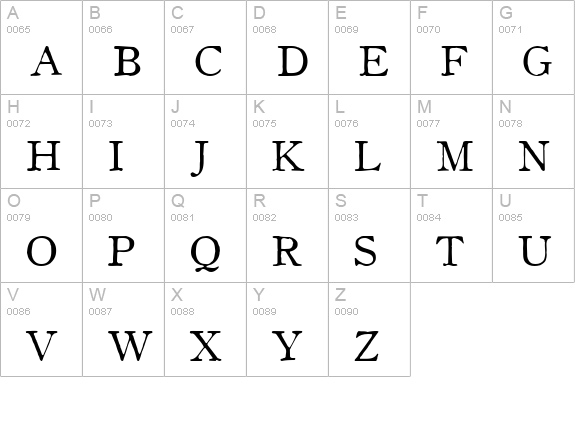
OldStyle 1 HPLHS Font Details
OldStyle 1 HPLHS font is a classic and elegant typeface that exudes sophistication and charm. With its timeless design and traditional feel, this font is perfect for adding a touch of vintage flair to your projects. The delicate serifs and graceful curves of OldStyle 1 HPLHS font make it a versatile choice for a wide range of design applications, from invitations to branding to editorial layouts. The best part is, OldStyle 1 HPLHS font is available for free download at FontsMarket.com. This means you can easily access this beautiful font and use it in your creative projects without any cost. Whether you're a professional designer or a hobbyist looking to elevate your work, OldStyle 1 HPLHS font is a fantastic choice that combines style and accessibility. Download it today and add a touch of old-world charm to your designs.